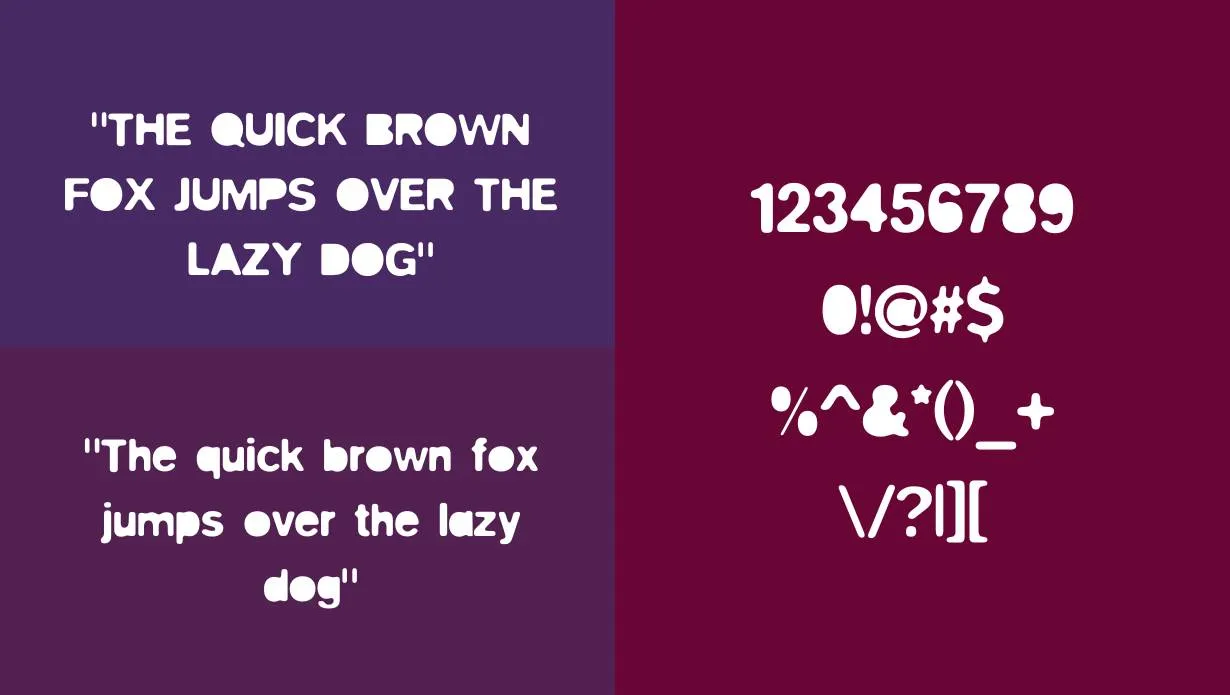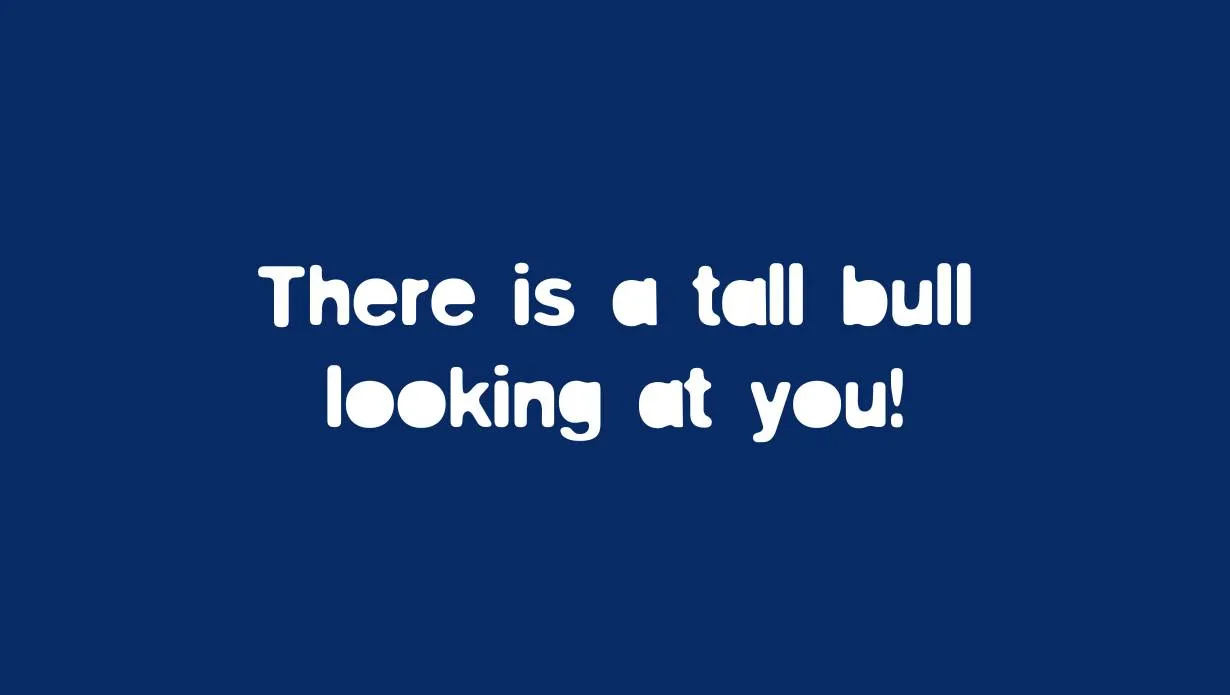
We’re offering a stylish and black font that can surely add a unique and distinctive touch to anything, this typeface is named Blitz Font.
Blitz Font is a Fancy font that was designed by Anderson Pereira along with OpenType and TrueType formats. It comes with its own unique and bold texture that is perfect for all those projects that want to be appealing and notable. It also make a very well pair with miraculous font.
| Designer | Anderson Pereira |